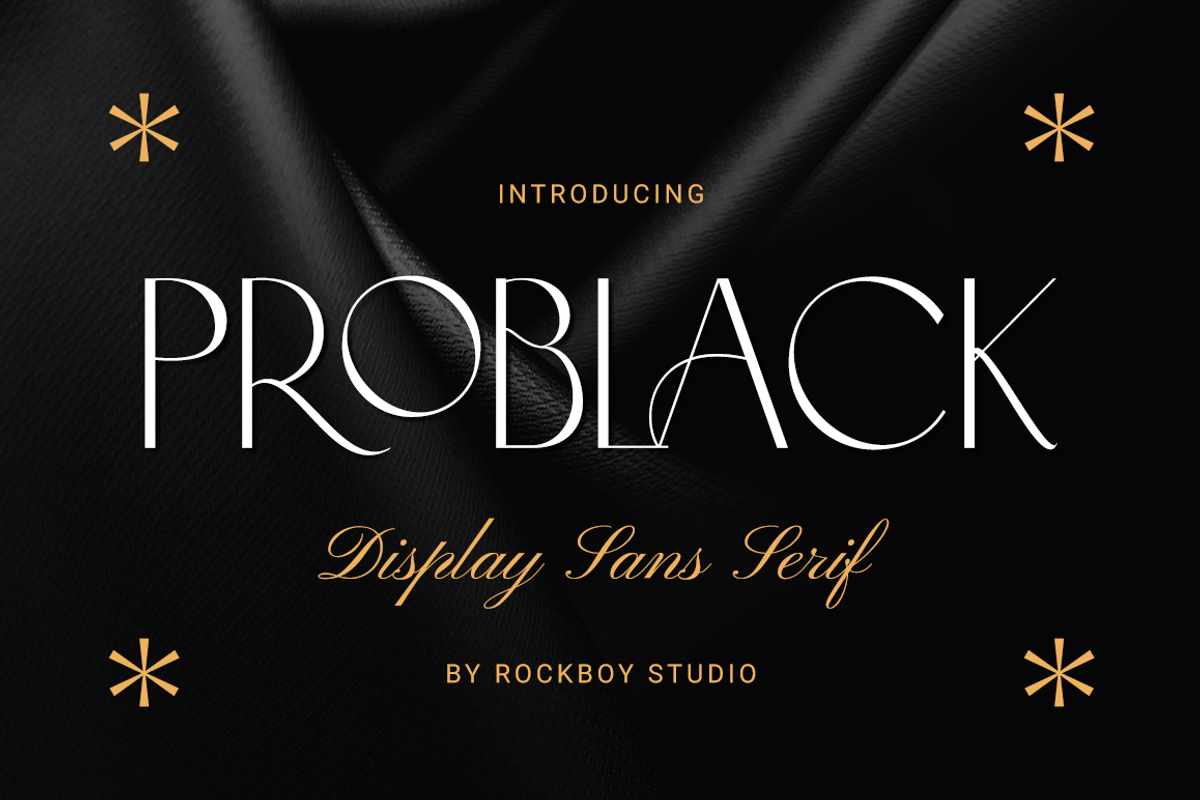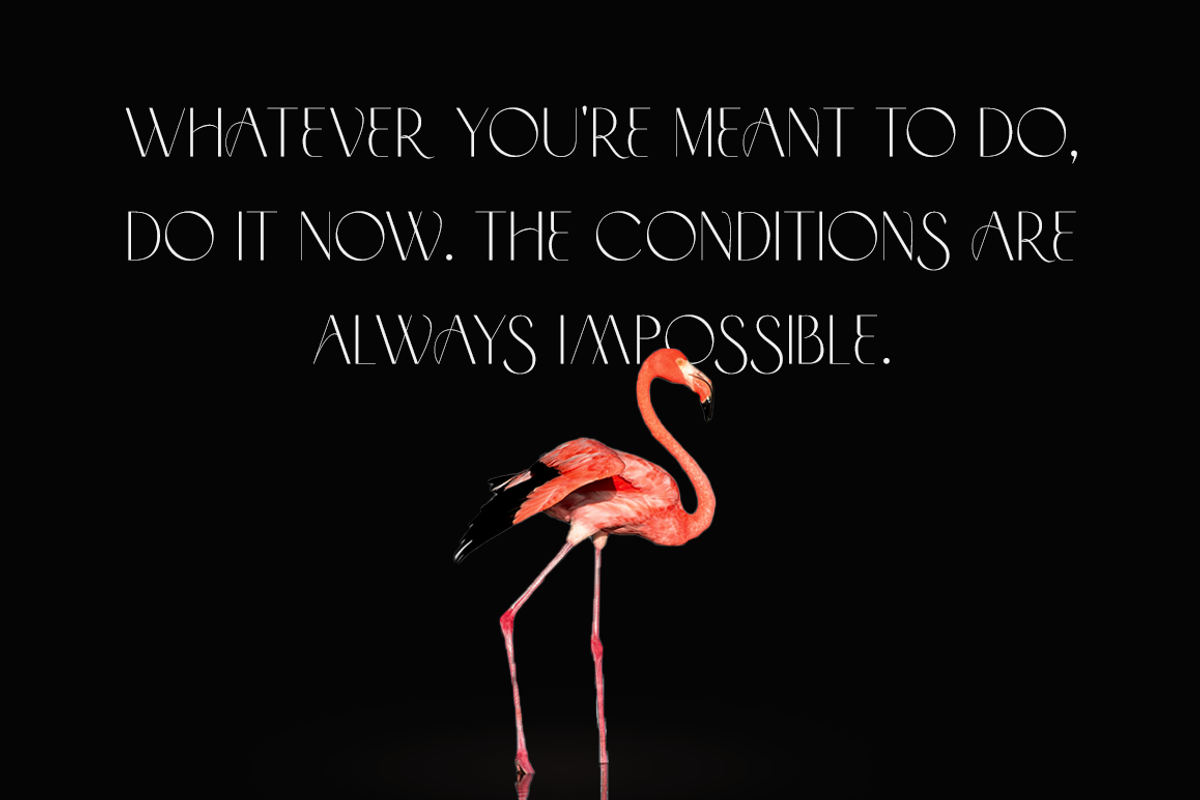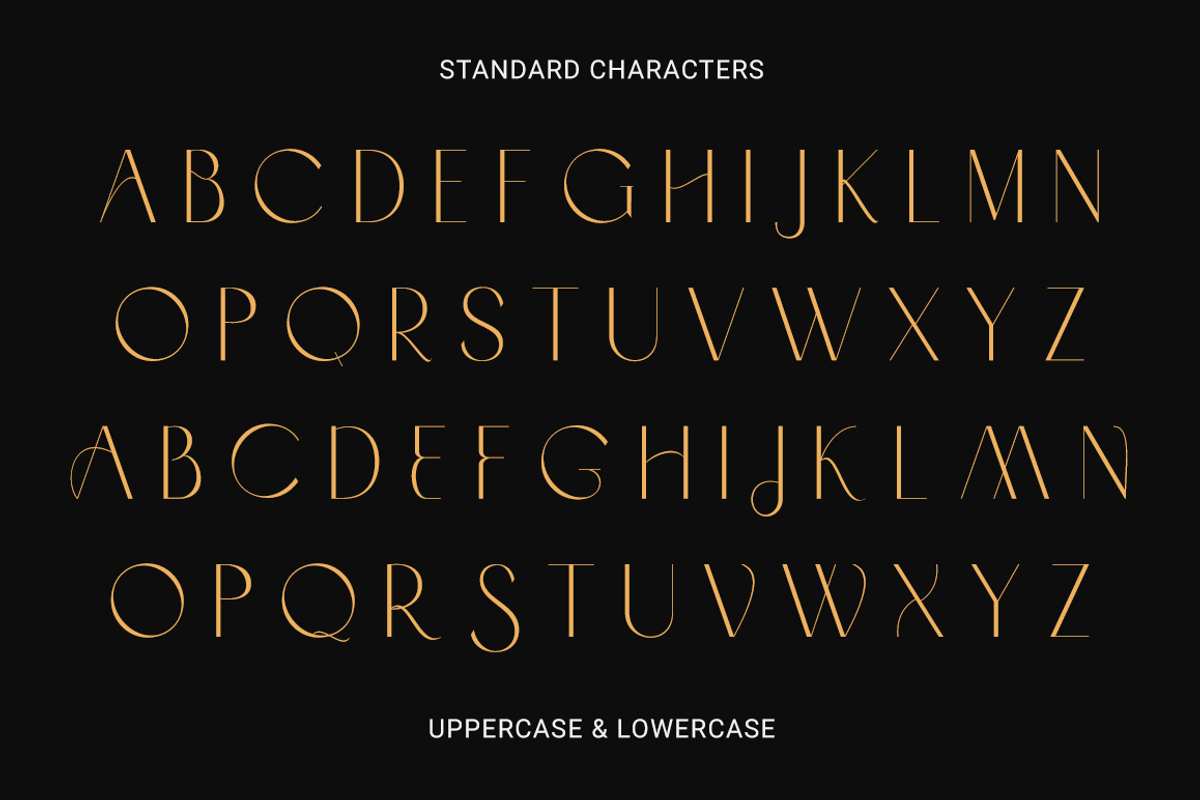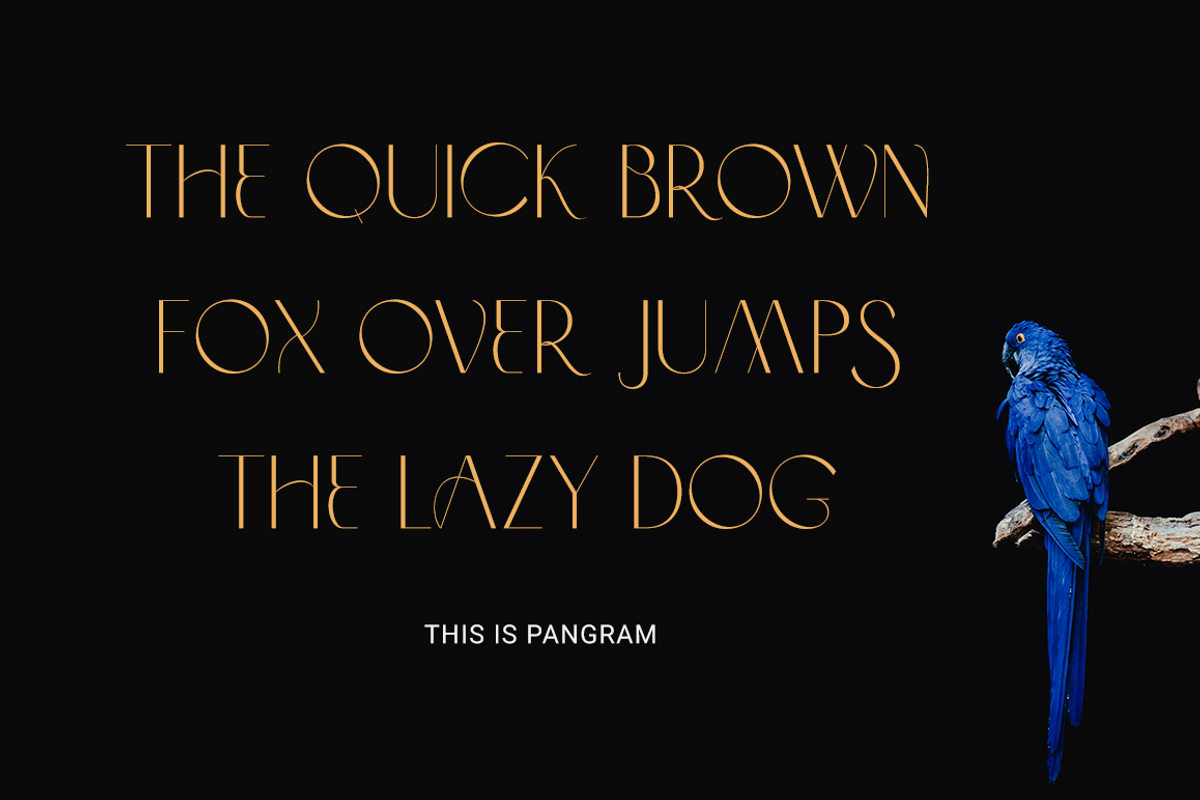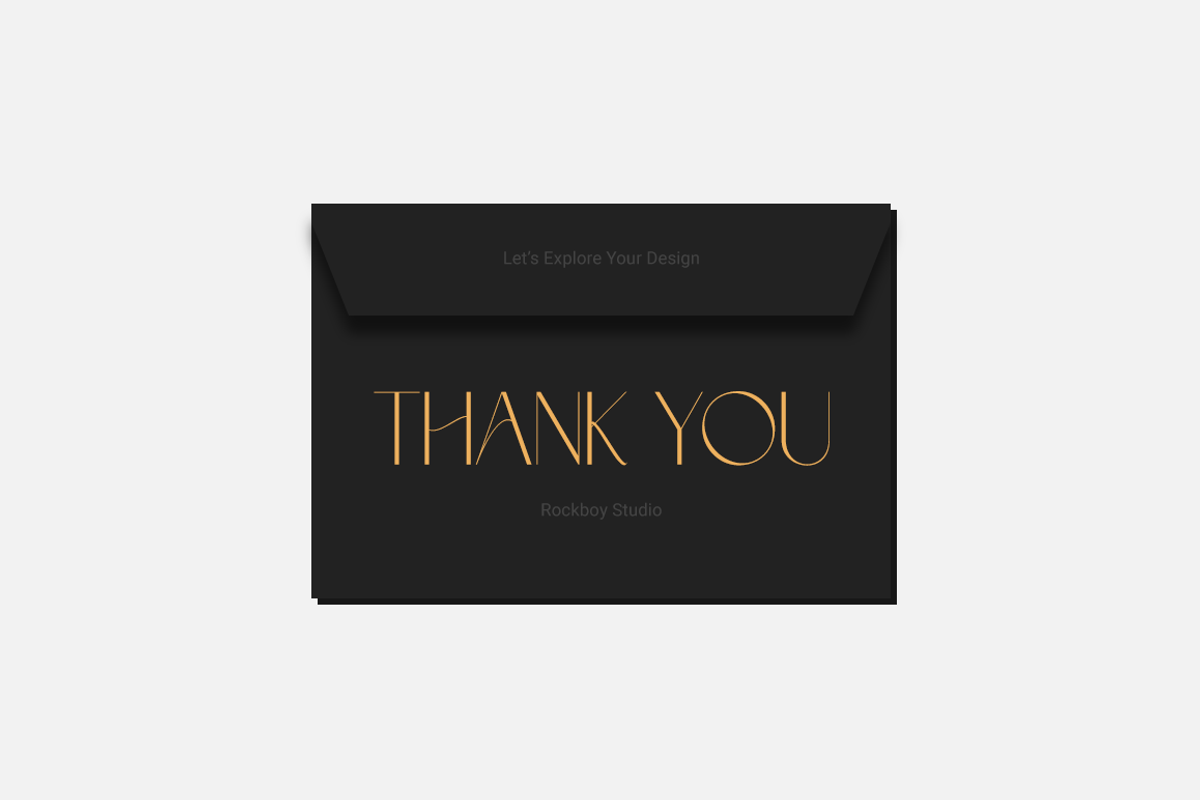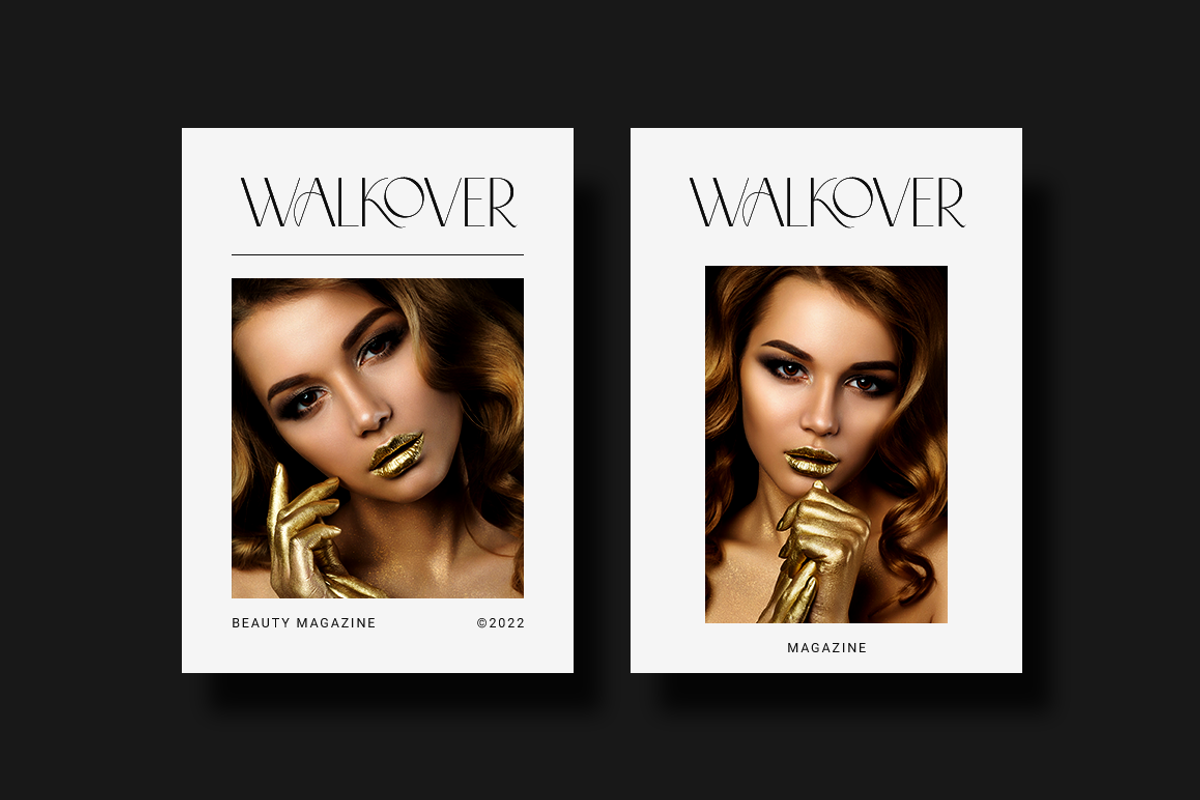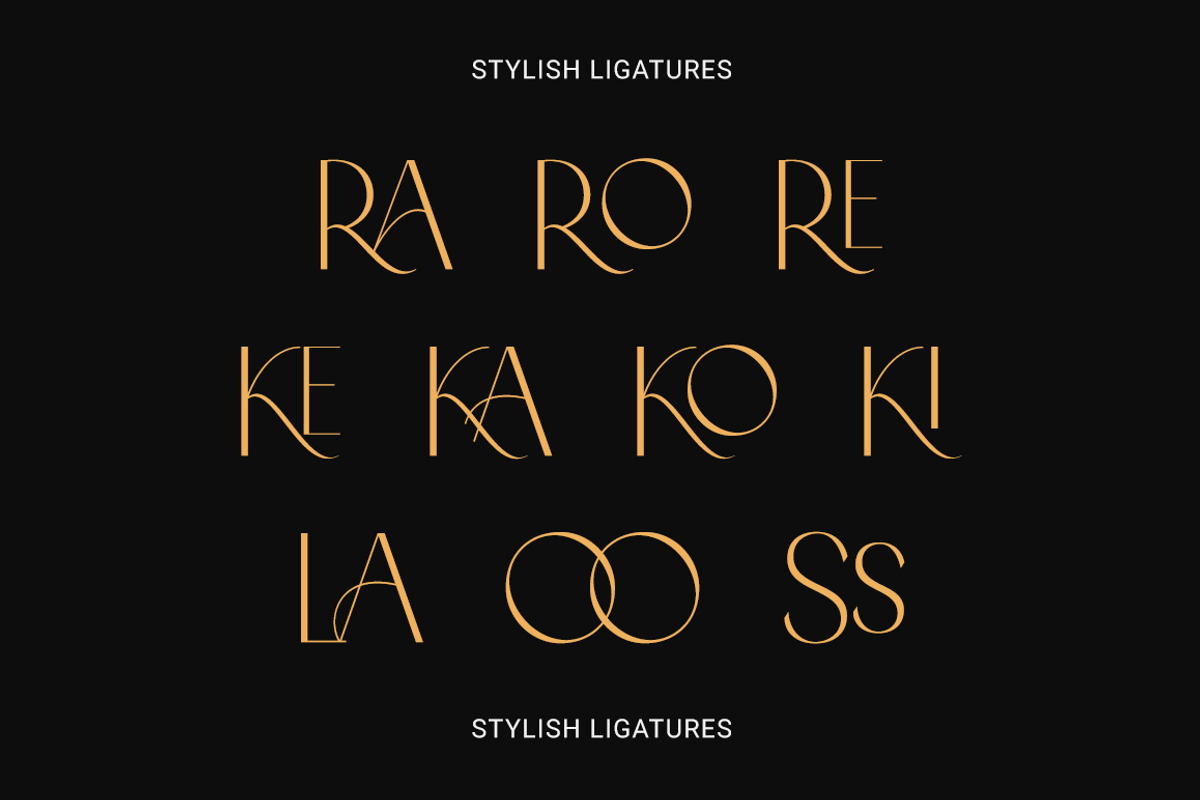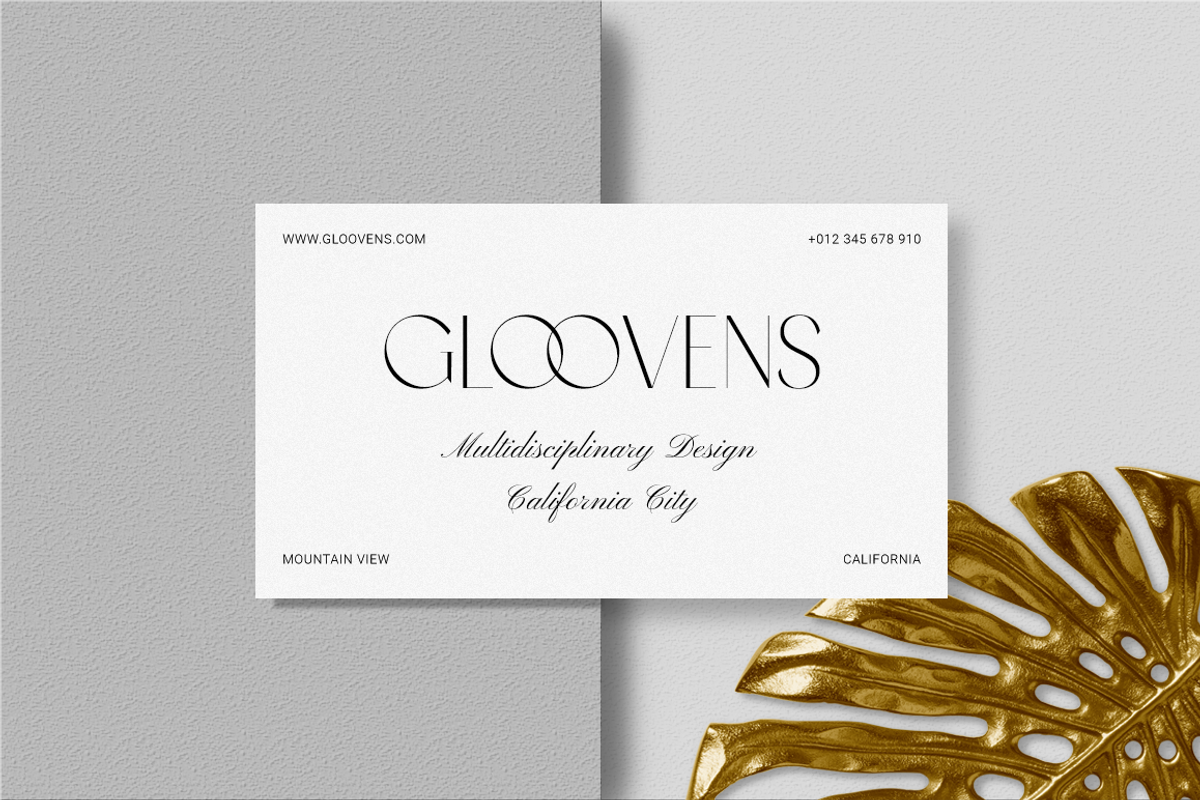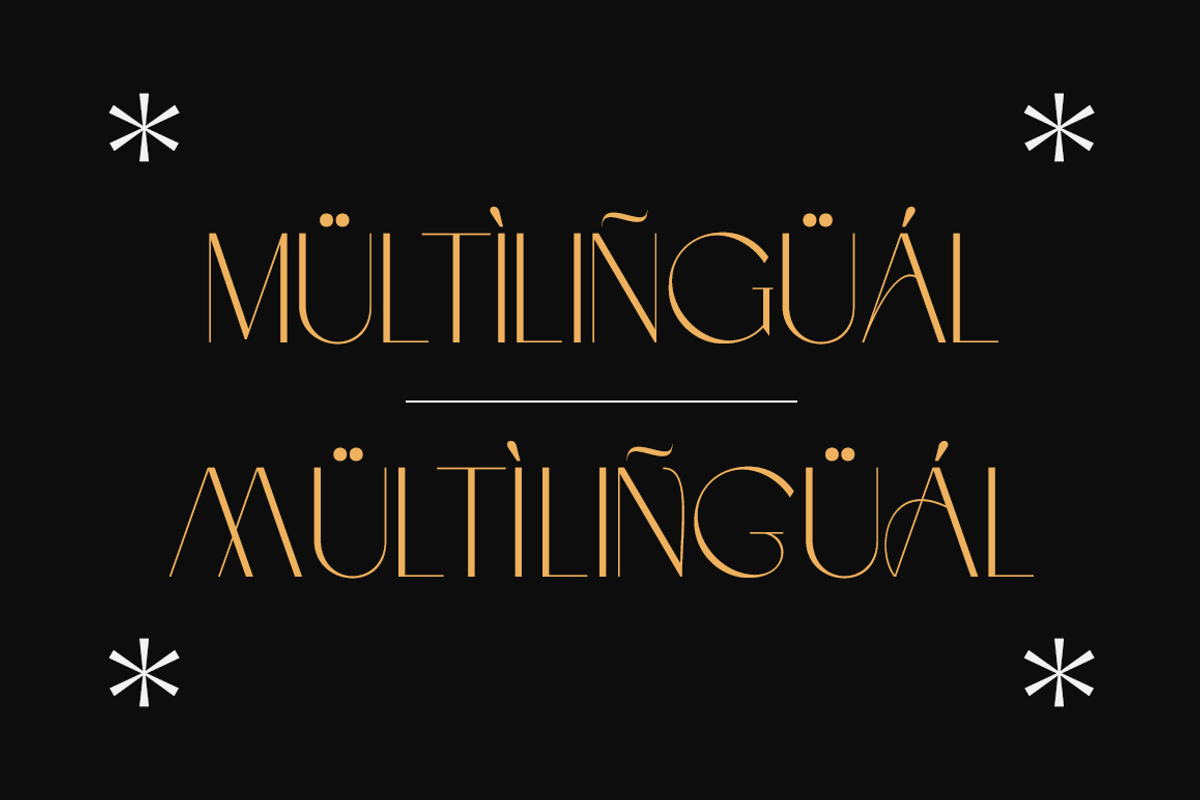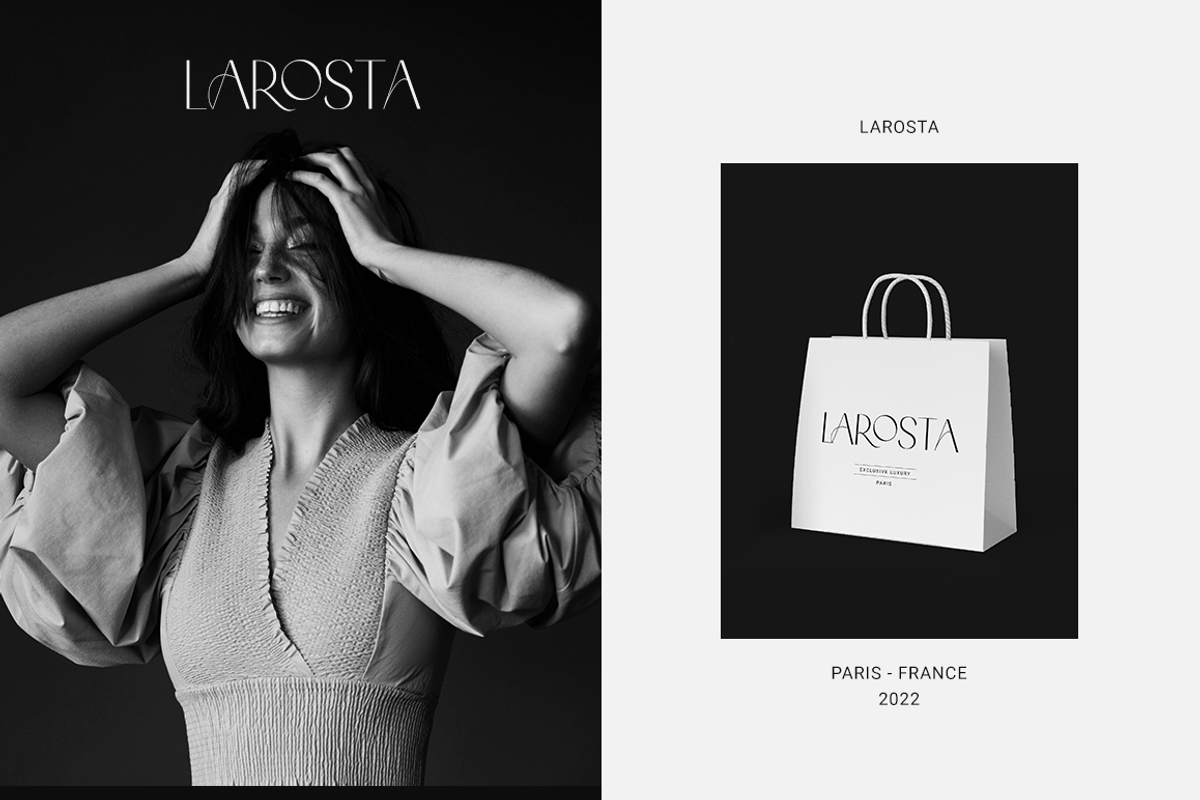
Problack - Elegant Sans Serif
Problack is an elegant and beautiful sans serif font. It will elevate a wide range of crafting ideas, from cards to branding, labels, and many more. Add it to any of your creative projects, and make them look extraordinary!